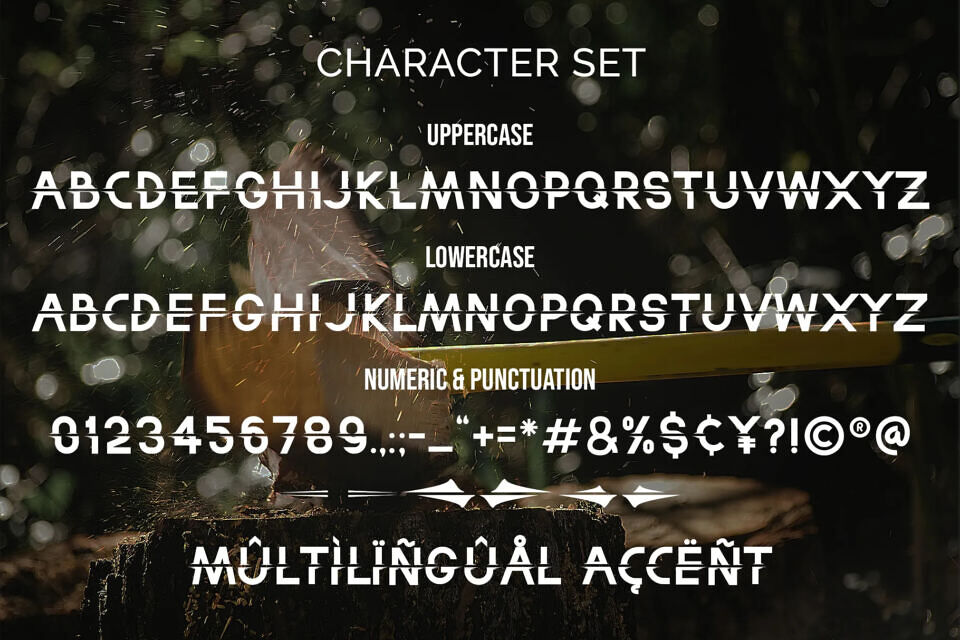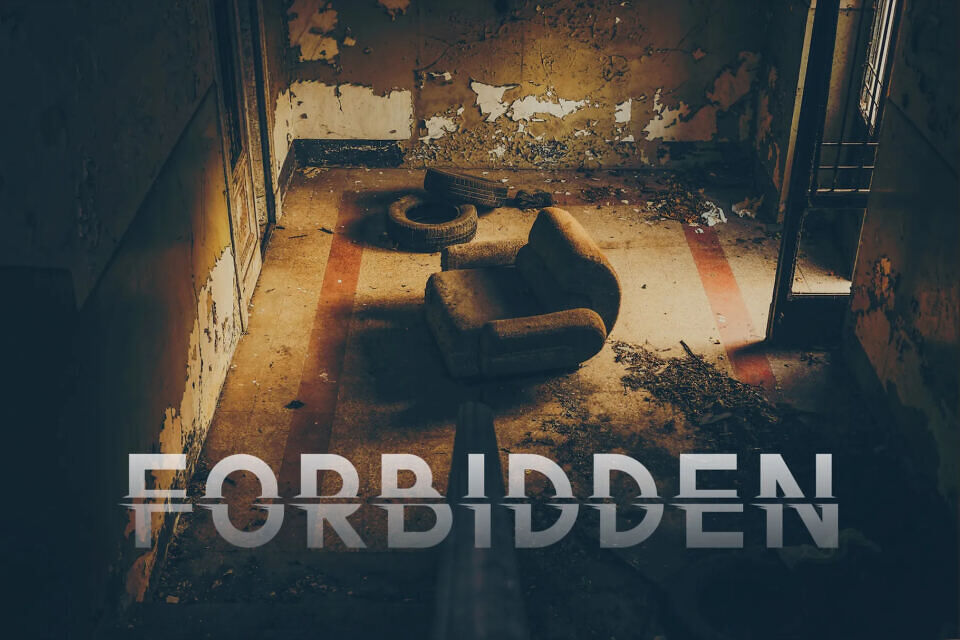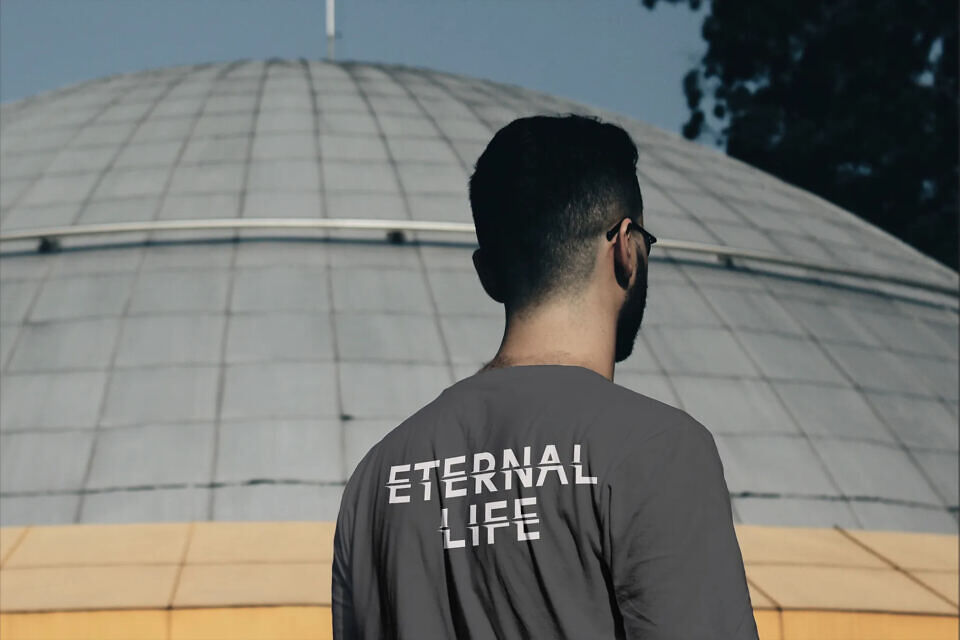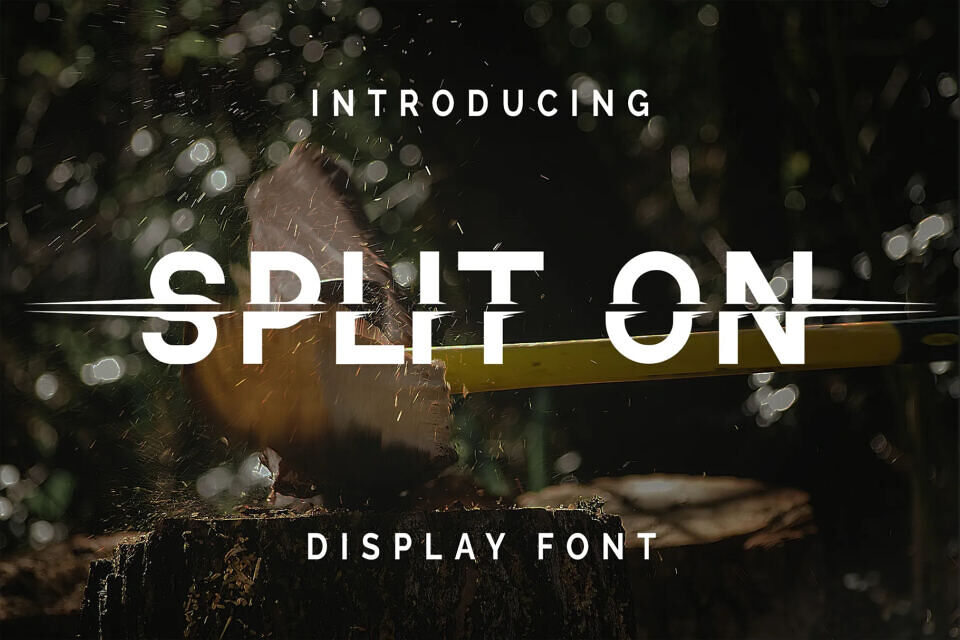
Split On Font
Split On is a distinctive display font featuring a unique cut-through design that gives each letter a bold, dynamic edge. Its striking style creates a modern, attention-grabbing aesthetic, making it perfect for logos, posters, branding, and creative projects that demand impact.
With its innovative look, Split On infuses designs with energy, movement, and originality. Ideal for designers seeking a contemporary statement font, it ensures your work stands out with vibrant personality and unforgettable visual appeal.